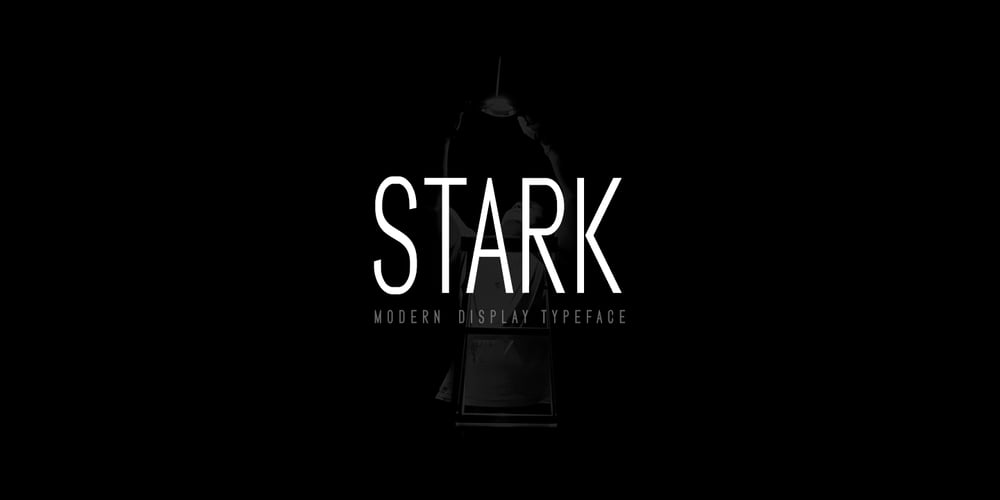
Stark Display Font Family was designed by Jean Johnson and published by Designova. Stark Display contains 6 styles and family package options. Stark is a unique typeface for logo, branding, headlines, big text & display usage. This modern all-caps typeface is inspired by movie posters and marketing themes. This typeface works very well with any kind of spacing options. The typeface is best suited for creating outstanding logos, promotional content and marketing graphics that can really grab attention from your visitors. Please see the examples shown above to get an idea about the capability of this typeface.